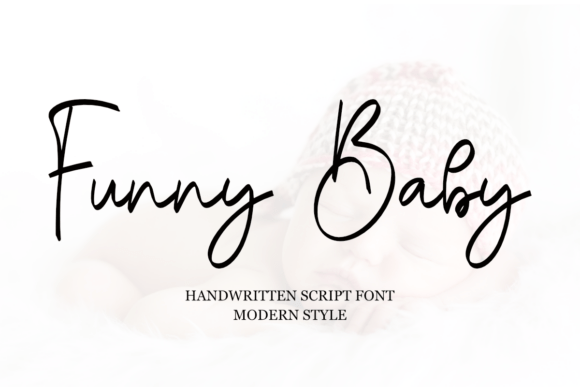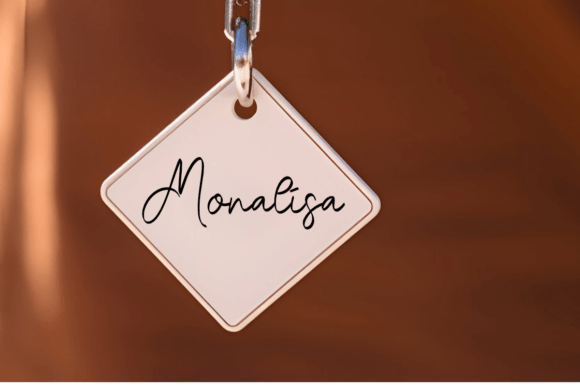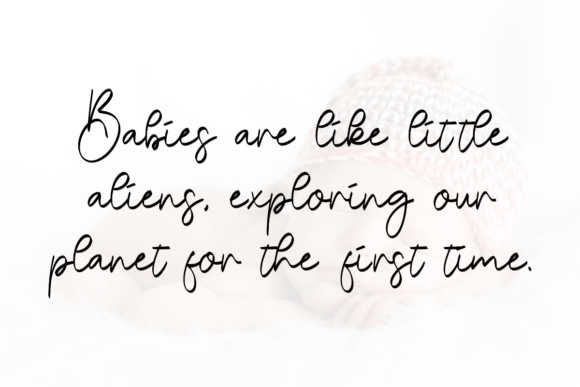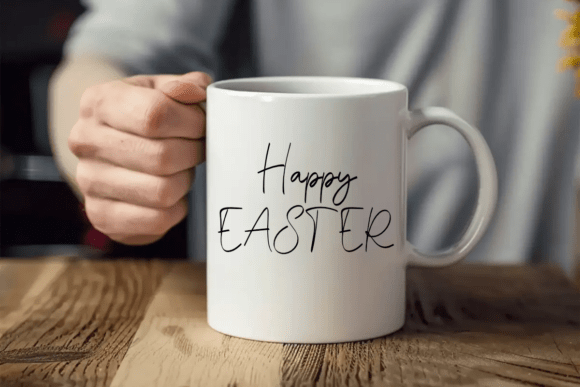
Funny Baby Font
Funny Baby is a modern handwritten script font that blends elegance with a touch of sweetness. Its flowing strokes and stylish curves make it ideal for baby brands, invitations, photography logos, and anything that needs a soft, sophisticated handwritten feel.